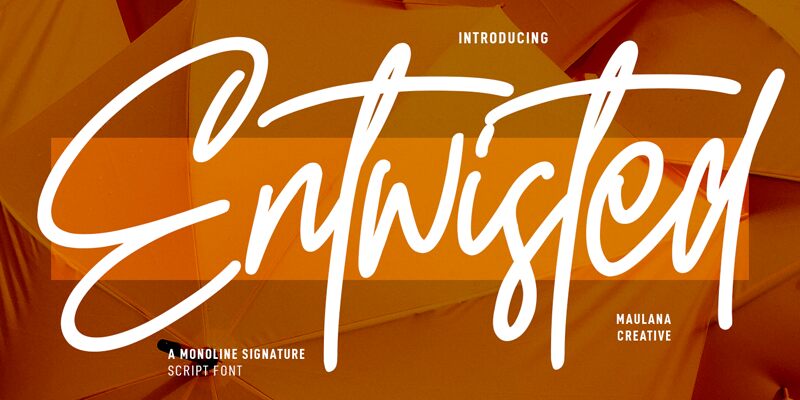
Entwisted, the stunning handwritten signature font designed by Maulana Creative, is the perfect choice for a wide range of creative projects. Its semi-light weight offers a delicate touch while maintaining excellent legibility. The unique style of Entwisted adds an elegant and personal touch to invitations, greeting cards, branding materials, and social media graphics. Whether you're creating wedding invitations or designing a logo for your business, Entwisted's flowing lines and curves will elevate your designs to the next level. With its charming handwritten appearance, this font will help you convey sincerity and warmth in all your projects.